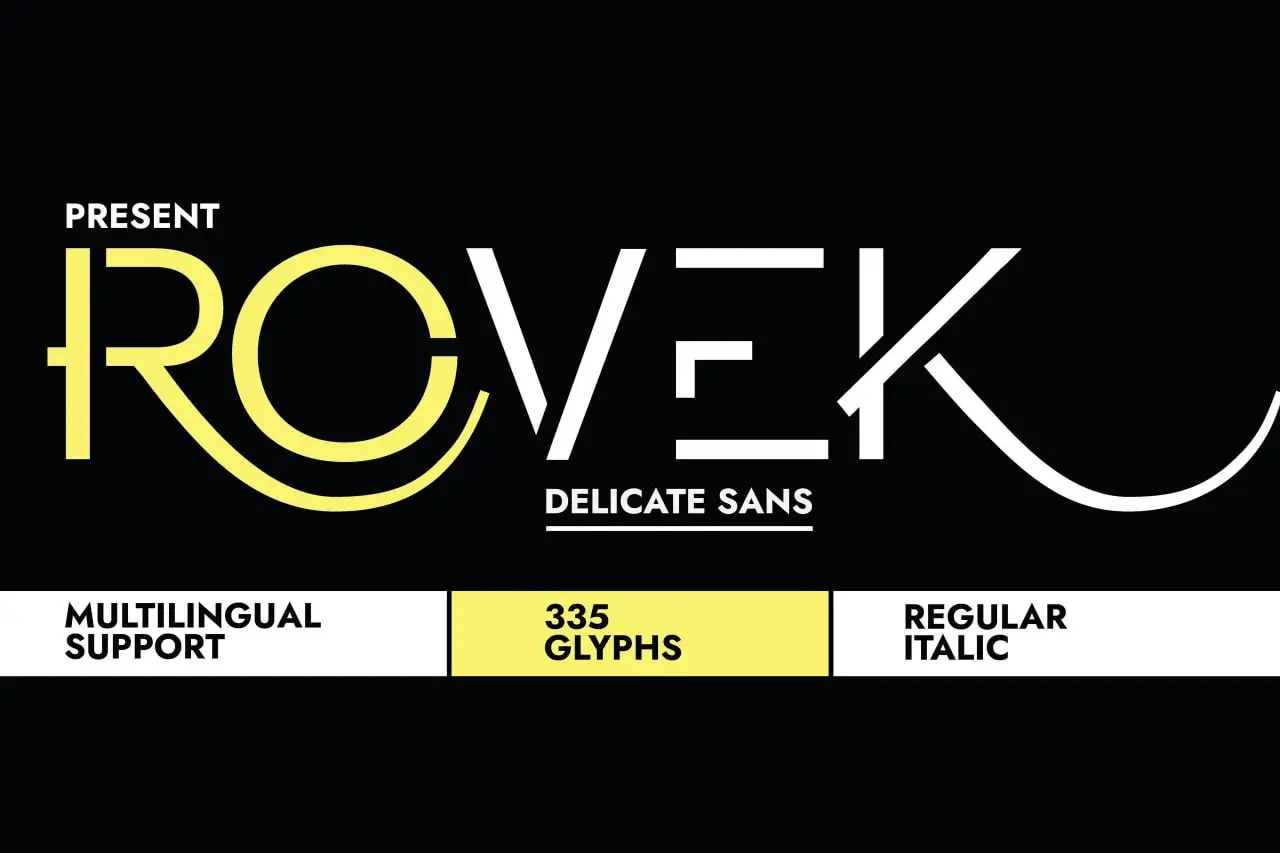
Top 20 Fresh Fonts & Design Assets for 2026: Brushespack Collection Part 116
Hey there, creative soul! 👋 Are you ready to supercharge your typography game? We’ve curated the absolute latest drops from Brushespack’s Collection Part 116, and trust me, this is a treasure trove you don’t want to miss. From moody blackletters to elegant serifs and playful handwritten fonts, this pack has something to give every project a fresh, unique voice. Let’s dive into these 20 hand-picked gems! 🚀🎨
Why Use These Design Assets?
Using fresh, high-quality fonts and design assets is like giving your artwork a brand-new personality. 🎭 Whether you’re building a brand identity, designing a wedding invitation, or creating a futuristic poster, these tools save you time and elevate your work from “meh” to “masterpiece” instantly. Plus, having a diverse library means you’ll never run out of inspiration! ✨
Top 20 Design Assets & Fonts Picks
Toxide-Blackletter
Want to channel some serious medieval vibes? 🏰 Toxide-Blackletter is the perfect mix of Gothic drama and modern readability. Ideal for logos, tattoos, or any project needing a bold, historic punch!
Triakis Font By Bydani
Clean, modern, and incredibly versatile—Triakis is your new go-to for branding and web design. 💻 It screams sophistication without being stuffy!
Sesenta
A versatile digital asset that bends to your will—perfect for social media graphics or eye-catching posters. 🖼️ High-resolution and super easy to tweak!
Robonauts — By Coastal Type
Futuristic, playful, and totally out of this world! 🌌 Robonauts is perfect for sci-fi projects, kids’ books, or any design that needs a quirky, techy twist.
Silverstag-Esther (Stylish Ligature Serif Font)
Elegance personified! ✨ Silverstag-Esther’s gorgeous ligatures make every word look like a piece of art. Perfect for high-end branding or wedding invites.
Rockboystudio Shootballs Handwritten Font Extended Latin
This playful, expressive font feels like a handwritten note from a best friend. 📝 With extended Latin support, it’s perfect for international projects or just adding a personal touch!
Slightly-Elegant Display Serif Font
Modern meets classic in this stunning display serif. ✨ It’s bold yet refined—ideal for magazine headlines or luxury packaging.
Roxie Rossa-Free Ligature Serif Font
Free? And this beautiful? 🤯 Roxie Rossa is a lovely serif with unique ligatures that add a touch of romance and flair to any text.
Recia Serif Display-Free Font
Another brilliant freebie! 🎁 Recia Serif is elegant and versatile, making your branding and logos look premium without spending a dime.
Santa Catarina By Stanislav Chiganov
This typeface is a perfect fusion of elegance and contemporary style. 🏖️ Use it for chic invitations or any project that needs a sunny, sophisticated vibe.
Rovek Font By Minimalist Art Studio
Simplicity is the ultimate sophistication, and Rovek nails it. 🖤 Clean, minimalist, and timeless—perfect for modern branding.
Sauro-By Stefano Giliberti
Unique and distinctive, Sauro has a modern aesthetic with clean lines that work wonders for creative branding. 🦎 A true standout!
Sixty Niners By Putracetol Studio
These high-quality digital assets are super versatile, ready to elevate any creative project you throw at them. 🚀 Perfect for collage makers and digital artists!
Smith-Premier Typewriter Font
Nostalgia overload! 📠 This vintage typewriter font is perfect for retro-themed designs, book covers, or adding a dash of history to your text.
Sawokecik-Vintage Elegant Serif Font
Old-world charm meets new-world usability. 🕰️ This elegant serif is perfect for invitations, logos, and any design that needs a touch of class.
Sk Goldilocks
Not too flashy, not too plain—Sk Goldilocks is just right. 🌟 A versatile design asset that adds a subtle elegance to any digital canvas.
It’s the latest curated drop of premium fonts and design assets from Brushespack, featuring 20 unique items including serif fonts, blackletter typefaces, and versatile digital assets perfect for branding, web design, and creative projects. 🚀